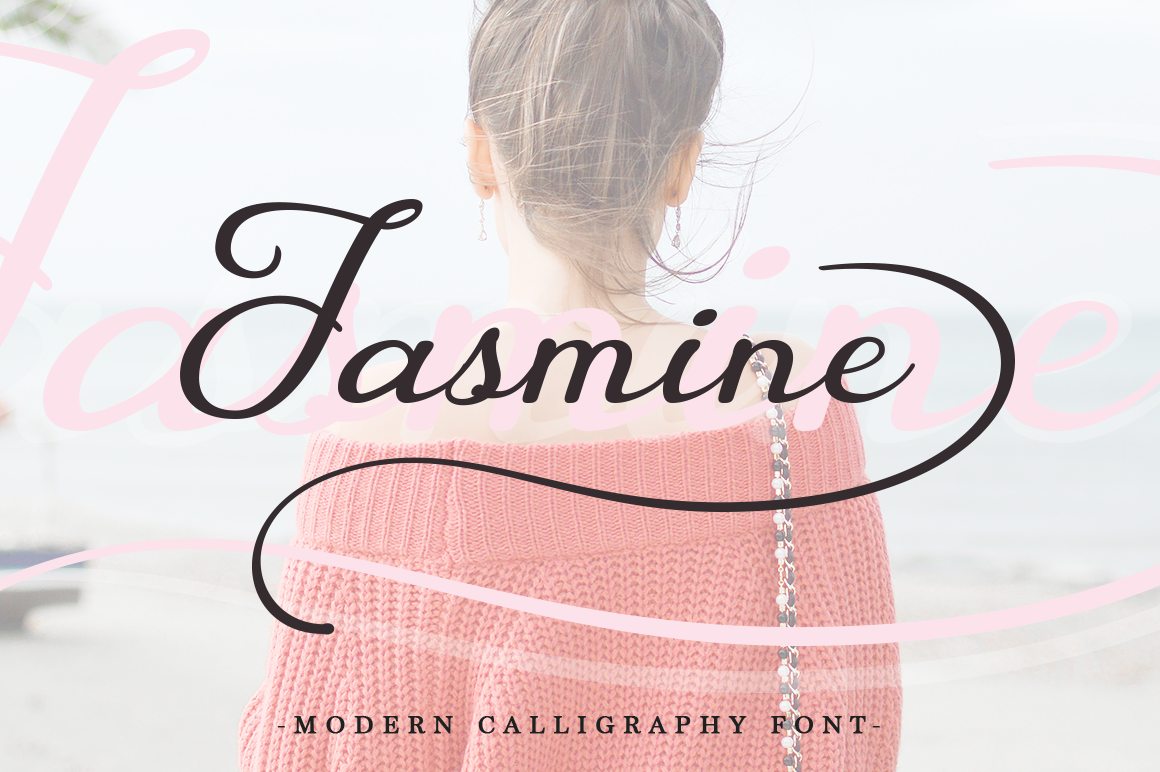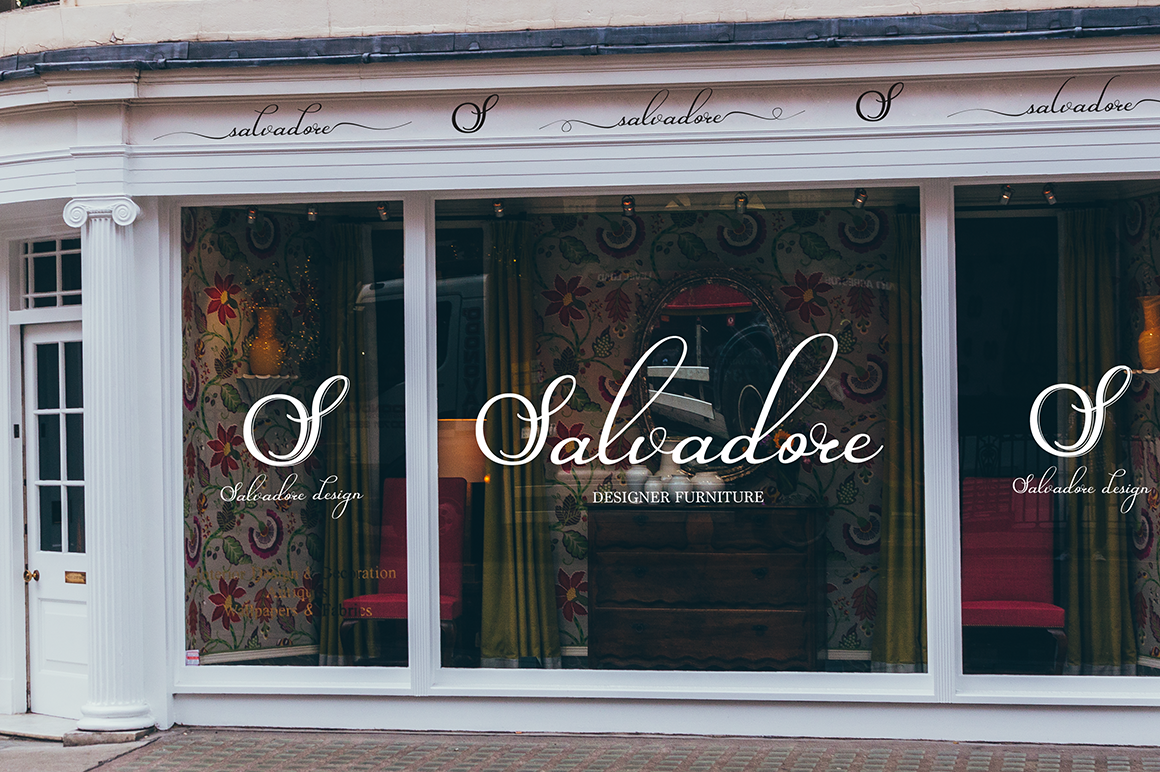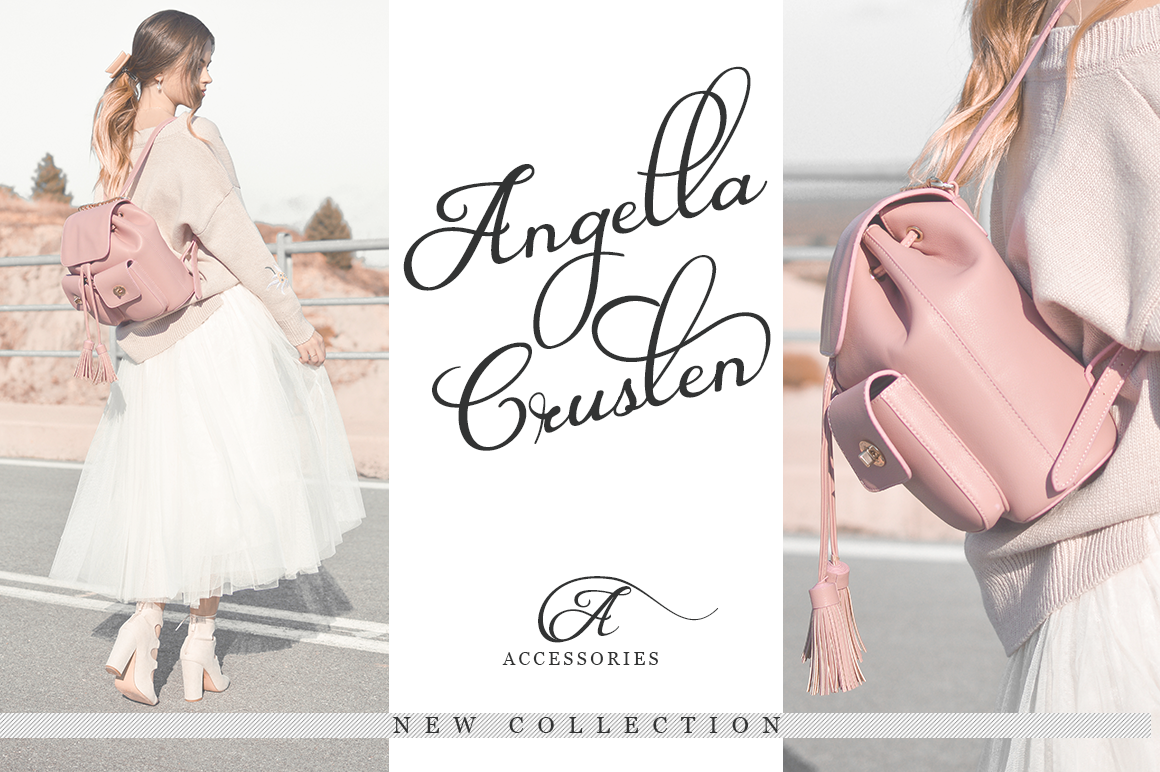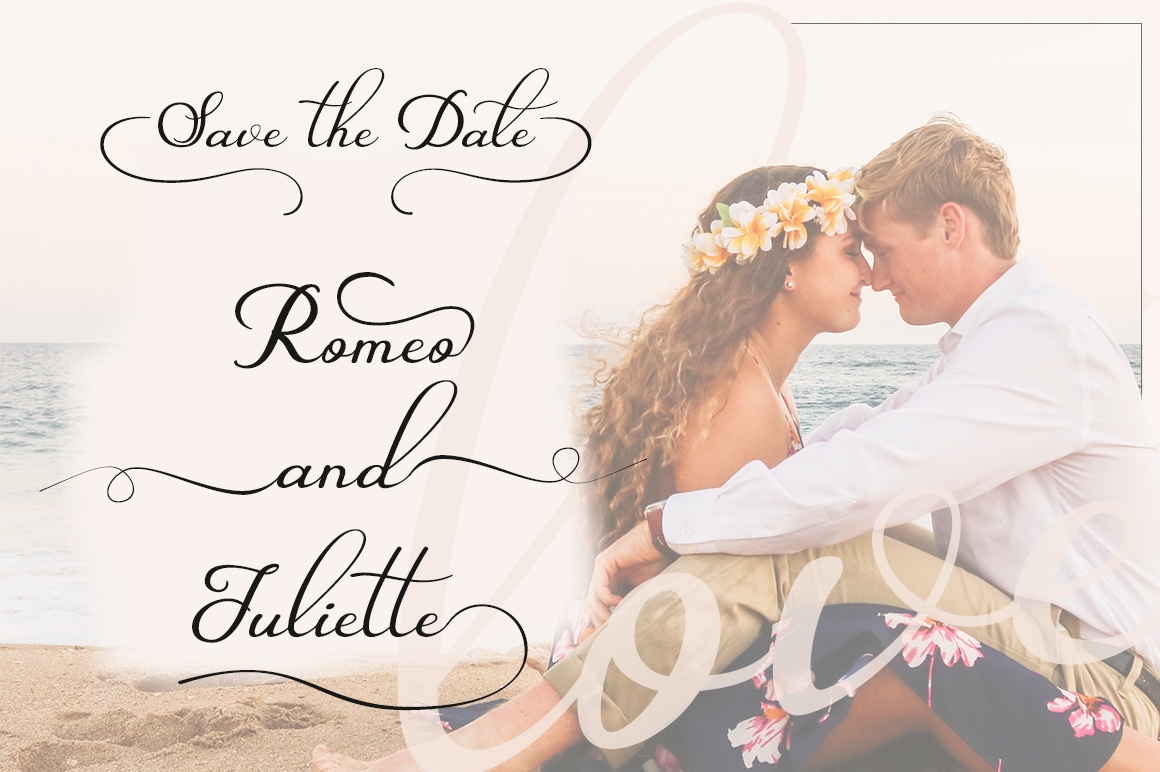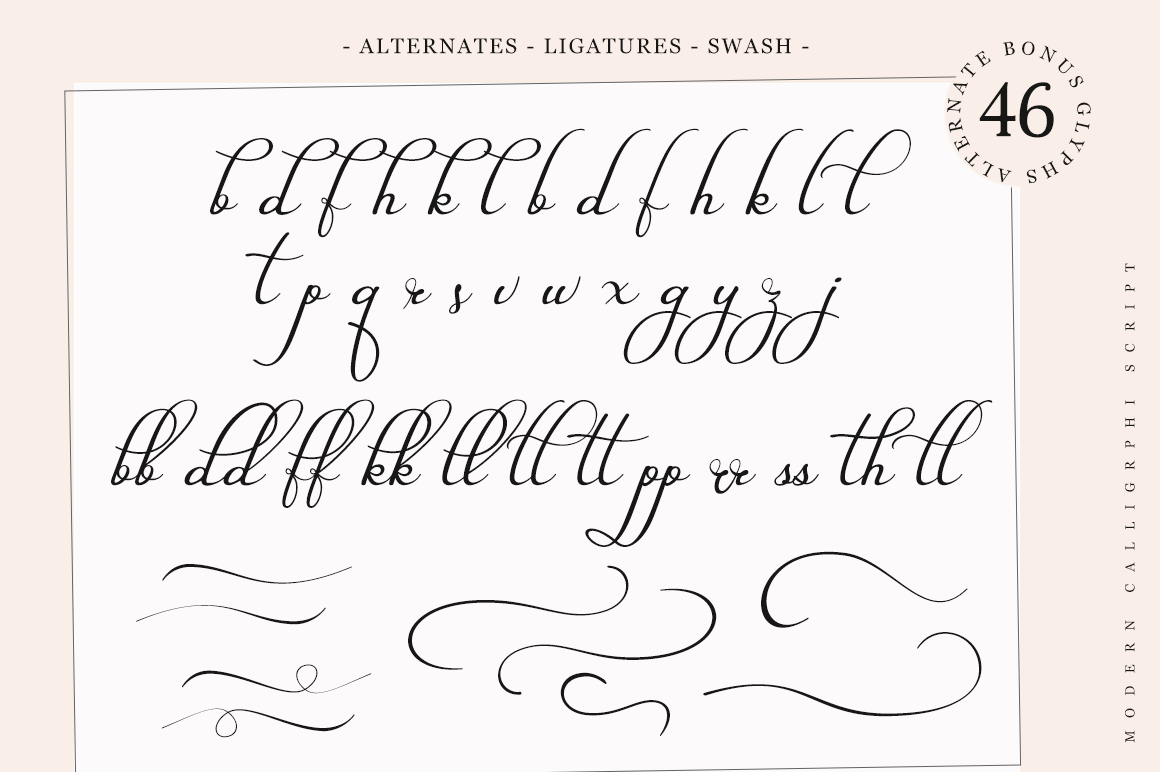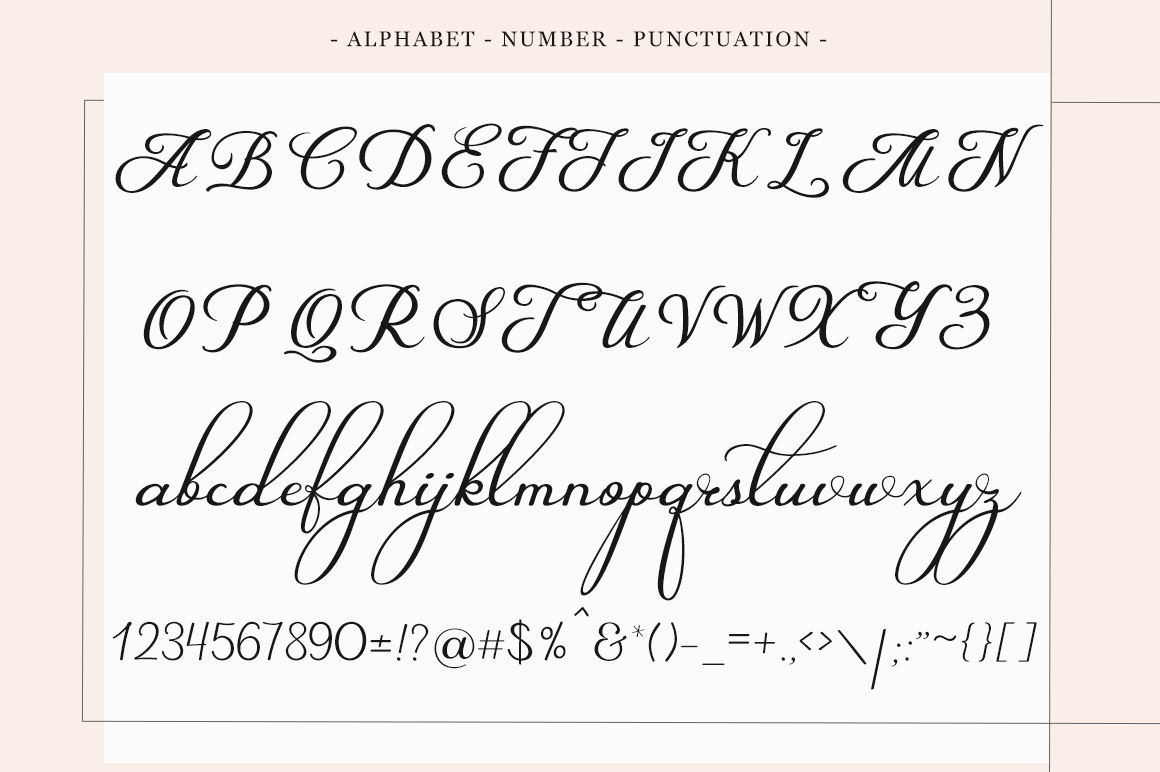
Jasmine Font
About Jasmine Font
Jasmine is a feminine and beautiful script font, handwritten for a genuine and authentic appeal. With added swashes and a beautiful styling, Jasmine is a suitable font for a wide range of designs and creative projects.